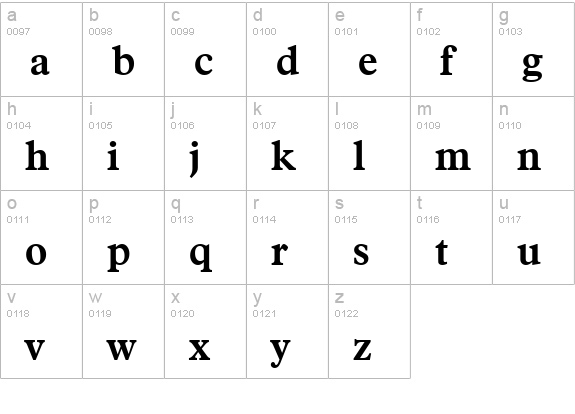
FranciscoSerial-Bold is a strong, high-contrast variant in the FranciscoSerial typeface family \xE2\x80\x94 well suited to headlines, attention-grabbing titles, and strong calls-to-action.
FranciscoSerial-Bold font exudes a bold and commanding presence with its sleek and modern design. This font is perfect for making a strong statement in your projects, whether it's for headlines, branding, or any creative endeavor that calls for a touch of sophistication. The distinctive and eye-catching characteristics of FranciscoSerial-Bold make it a versatile choice for various design needs, from print materials to digital presentations. Its clean lines and sharp edges give it a contemporary feel that is sure to captivate your audience. Best of all, FranciscoSerial-Bold is available for free download at FontsMarket.com, making it easily accessible for all your design projects. Don't miss out on the opportunity to elevate your work with this exceptional font that combines style, professionalism, and a touch of boldness.